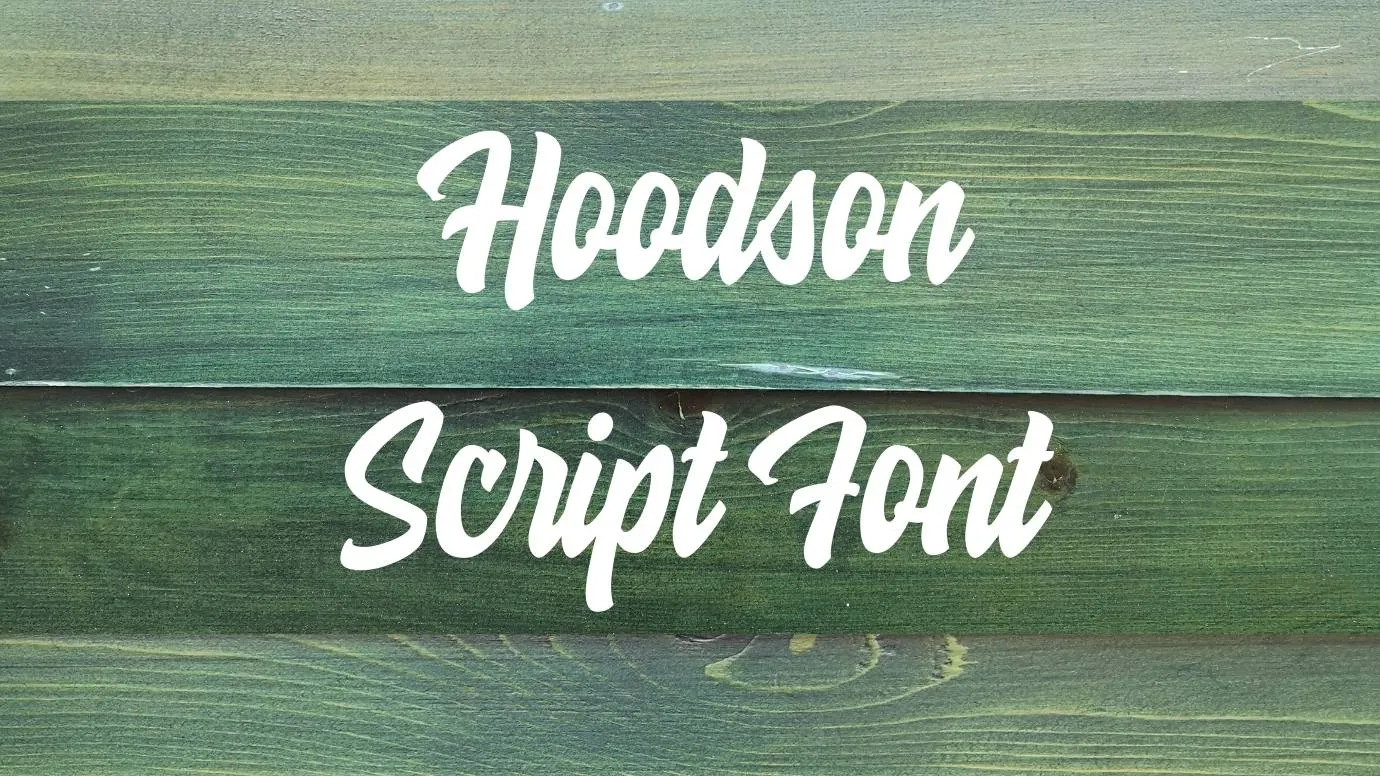
Hoodson Script Font Family is a fashionable typeface. This creation comes from Dirtyline Studio, a Foundry that crafted it. It falls under the Script typeface category.
| Name | Hoodson Script Font |
| Type | Script |
| Designer | Dirty line Studio |